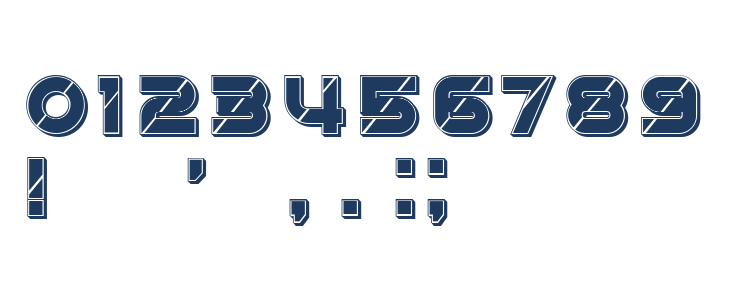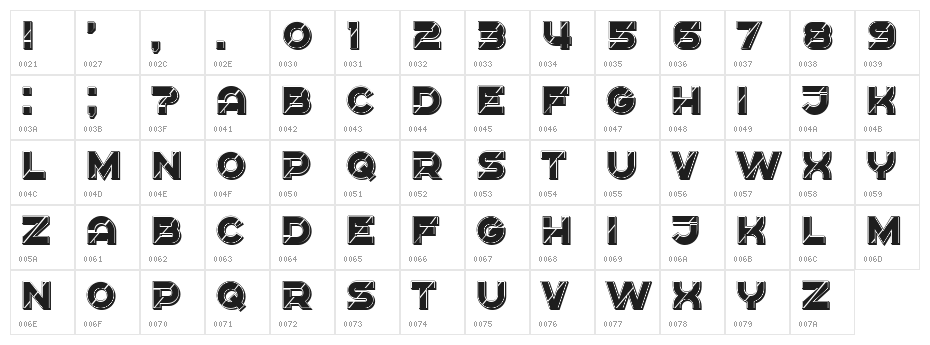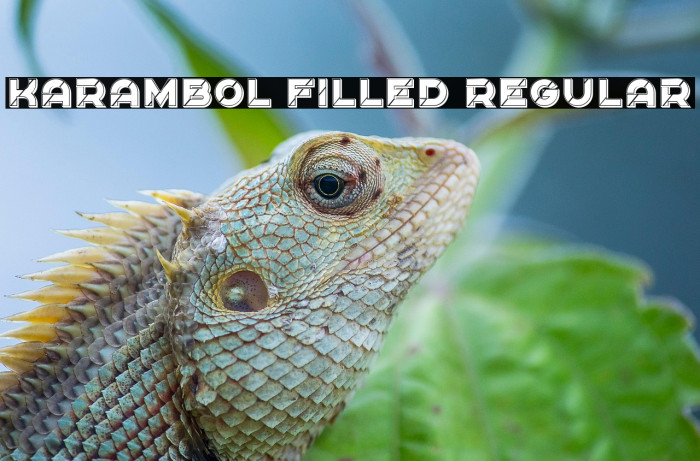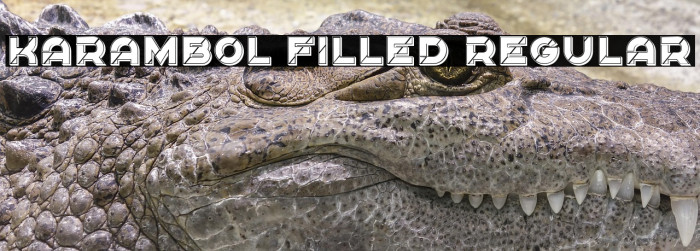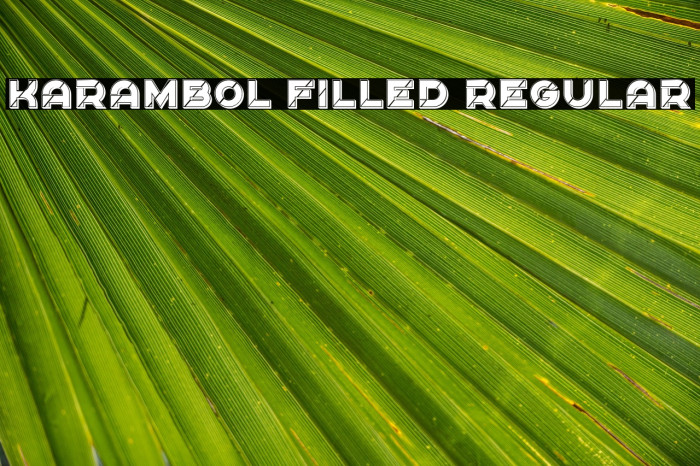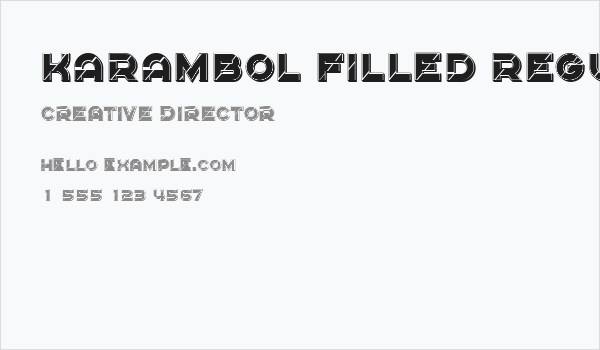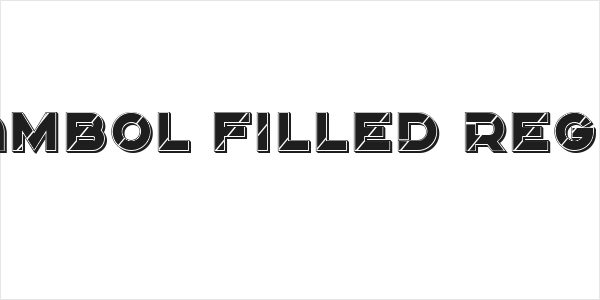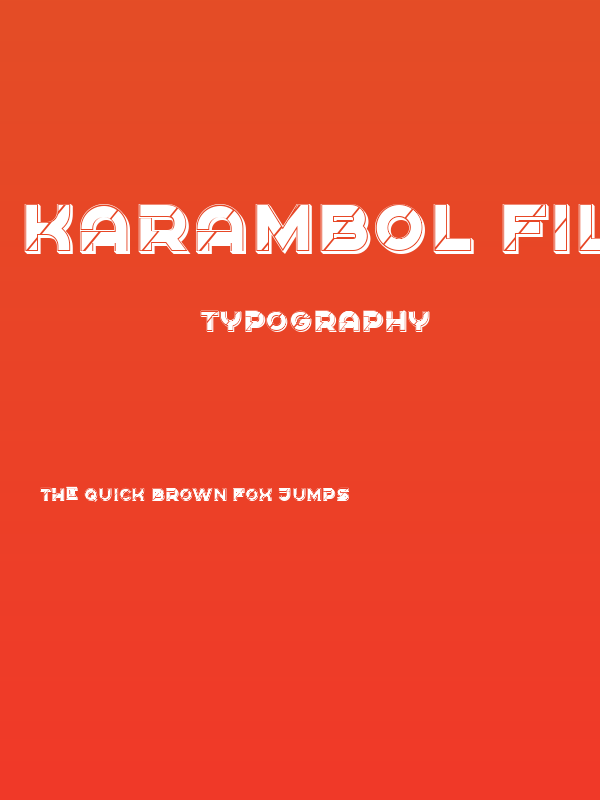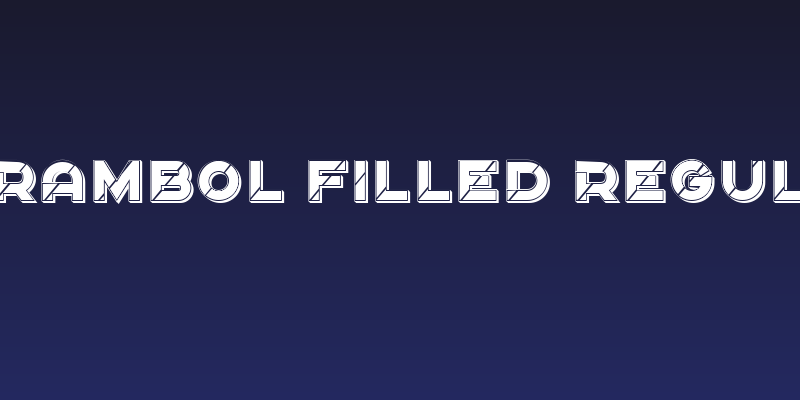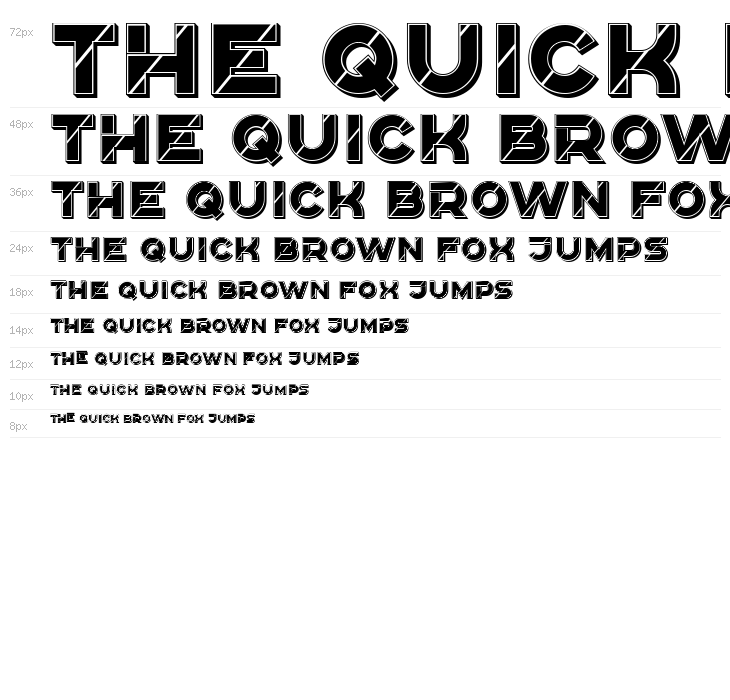
Karambol Filled Regular Font
Karambol Filled Regular Description
This font features a bold, geometric design with a filled, three-dimensional appearance. The characters are constructed with thick strokes and sharp angles, creating a dynamic and impactful look. The style is reminiscent of retro-futuristic aesthetics, with a strong emphasis on symmetry and balance. The uppercase letters are particularly striking, with their bold forms and intricate detailing. The numbers and special characters maintain the same bold and structured design, ensuring consistency across all elements. This font is ideal for projects that require a strong visual presence and a modern, edgy feel.
| Overall Style | Modern, Retro-Futuristic |
| Proposed Projects | Ideal for posters, logos, video game graphics, and any design needing a bold, modern touch. |